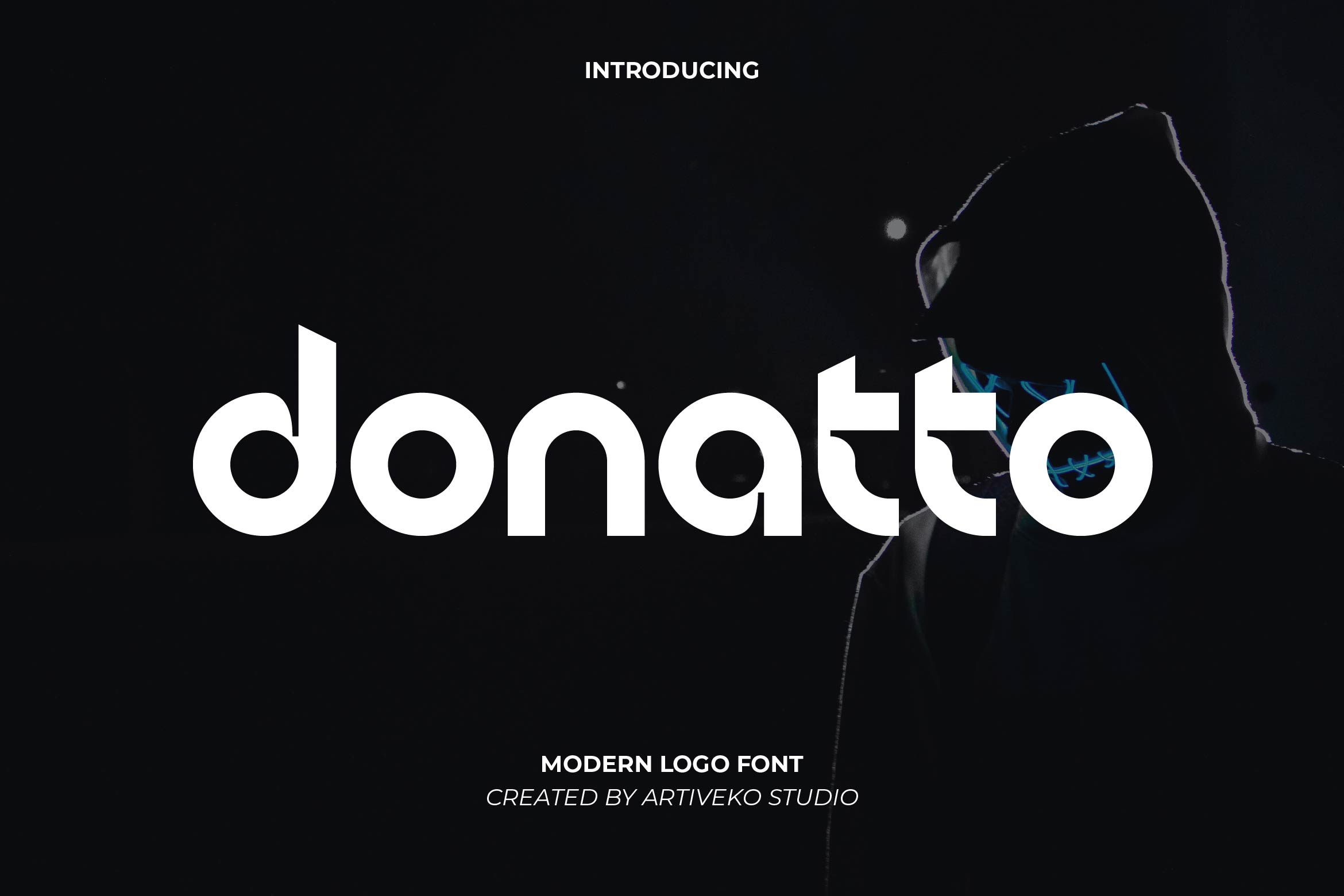
- Donatto Bold Sans Logo Font
Donatto is a sleek and versatile sans serif font designed for clarity, balance, and timeless appeal. With its geometric precision, smooth curves, and refined proportions, Donatto is perfect for branding, editorial layouts, web design, packaging, presentations, and social media graphics.
Its contemporary style ensures excellent readability, making it ideal for both bold headlines and elegant body text. Donatto adapts seamlessly to various industries such as fashion, tech, lifestyle, and creative agencies, giving every project a polished and professional look.
The font includes uppercase and lowercase letters, numerals, punctuation, multilingual support, and stylistic alternates for added creative flexibility.
Bring modern sophistication to your designs with Donatto — the sans serif typeface that combines simplicity, elegance, and functionality.